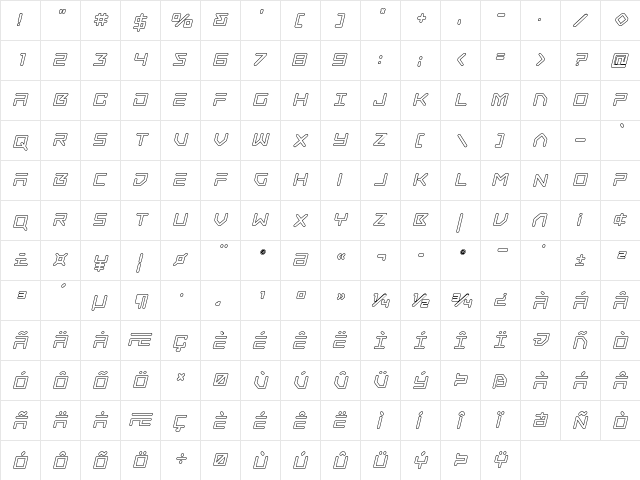
Tempest Apache Outline Italic Outline Italic
Design Context for Tempest Apache Outline Italic Typeface
Tempest Apache Outline Italic is built around its visual character rather than neutral utility — its distinctive forms are designed to make an impression at display sizes. The dynamic lean of this cut emphasises speed and emphasis in any layout.
Font Pairing: Pair with a clean neutral sans-serif for body copy to let Tempest Apache Outline Italic's character lead without overwhelming the composition.
Pro Tip: Use Tempest Apache Outline Italic exclusively at display sizes — it was designed to be seen, not read at length. Let a neutral companion handle body copy.